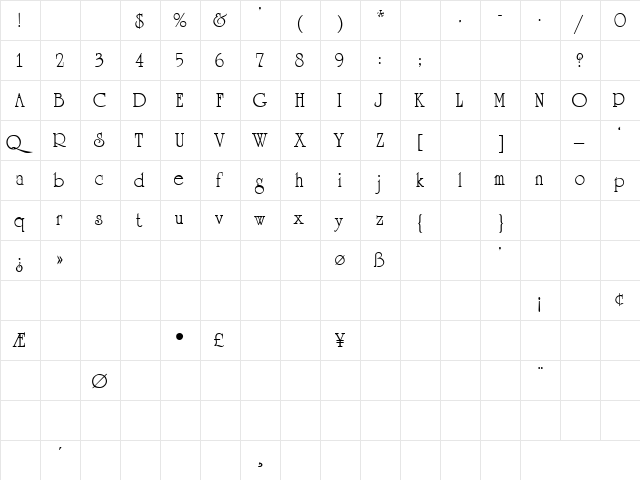
Machine Gun 5 Regular
Design Context for Machine Gun 5 Typeface
Machine Gun 5 takes a measured approach to typography — its balanced proportions and neutral character make it a reliable workhorse for both digital and print work.